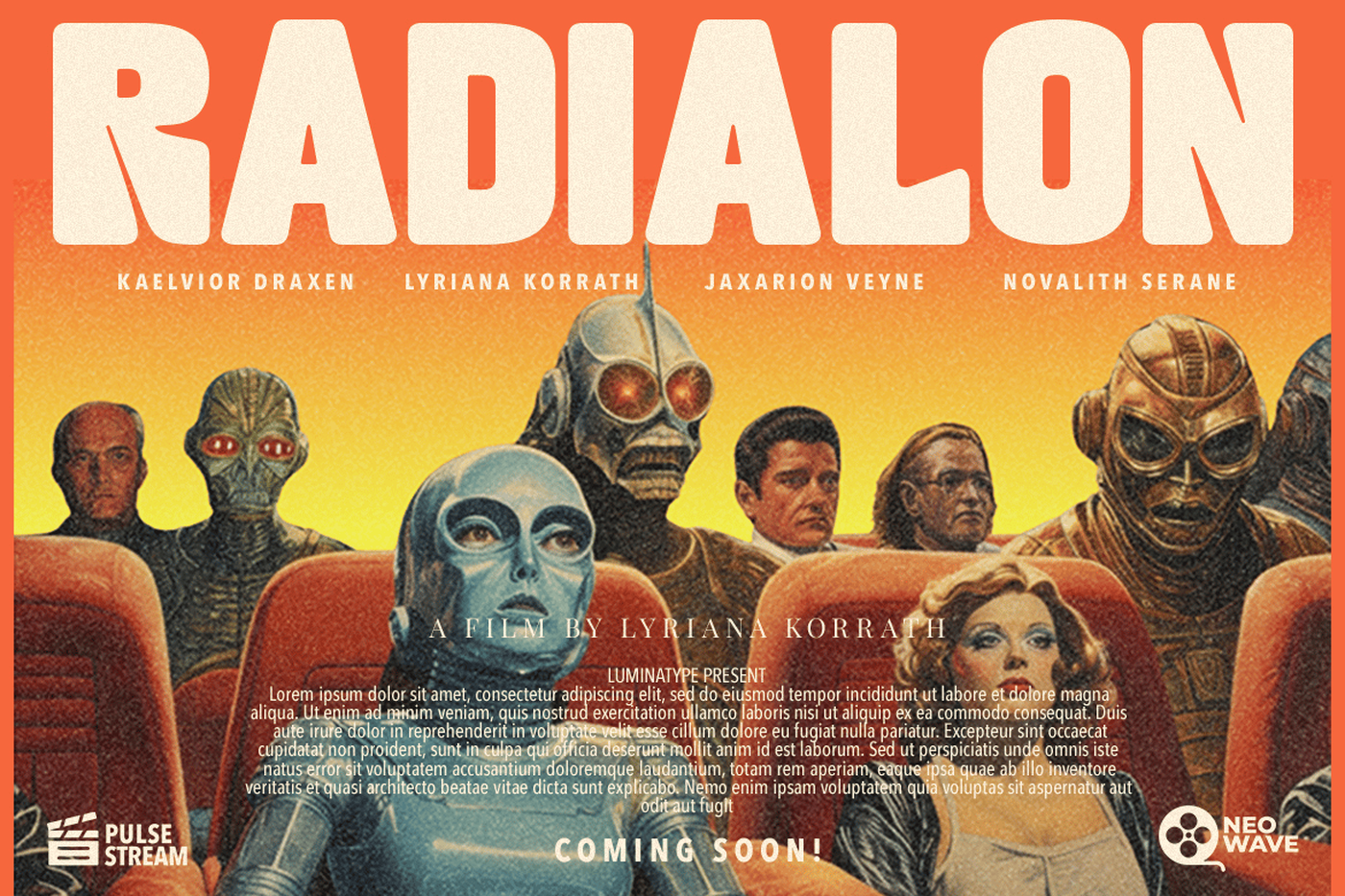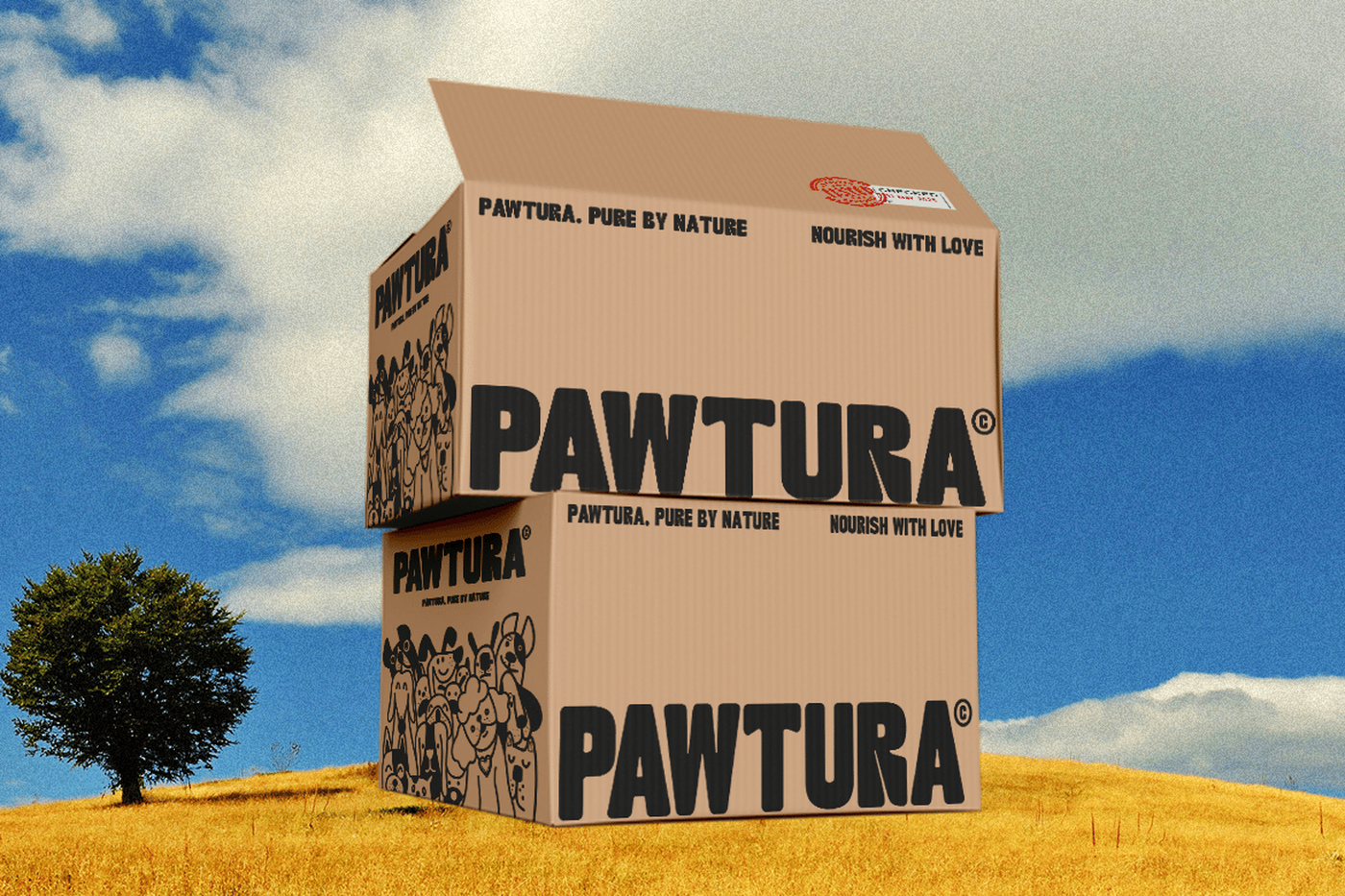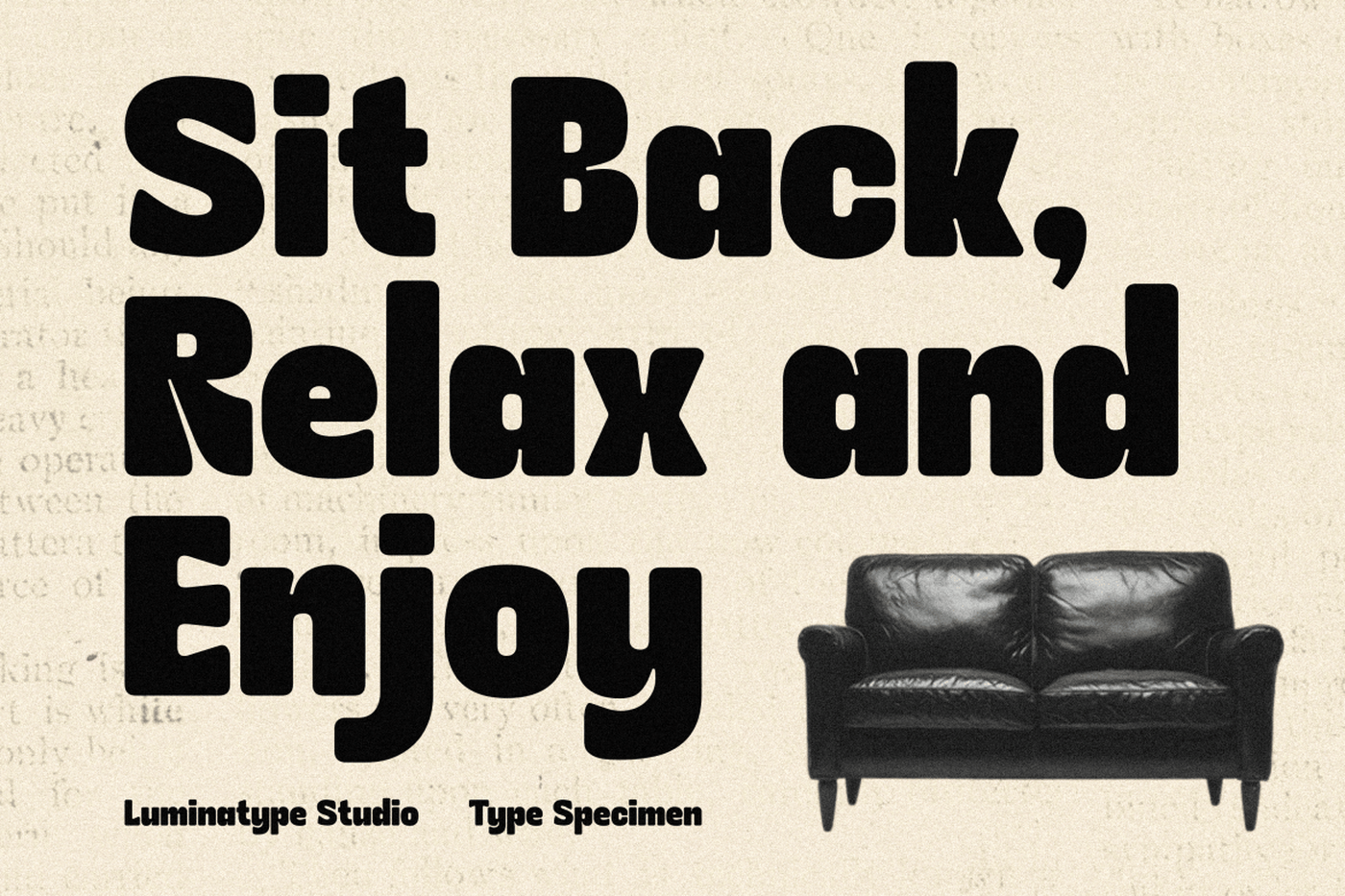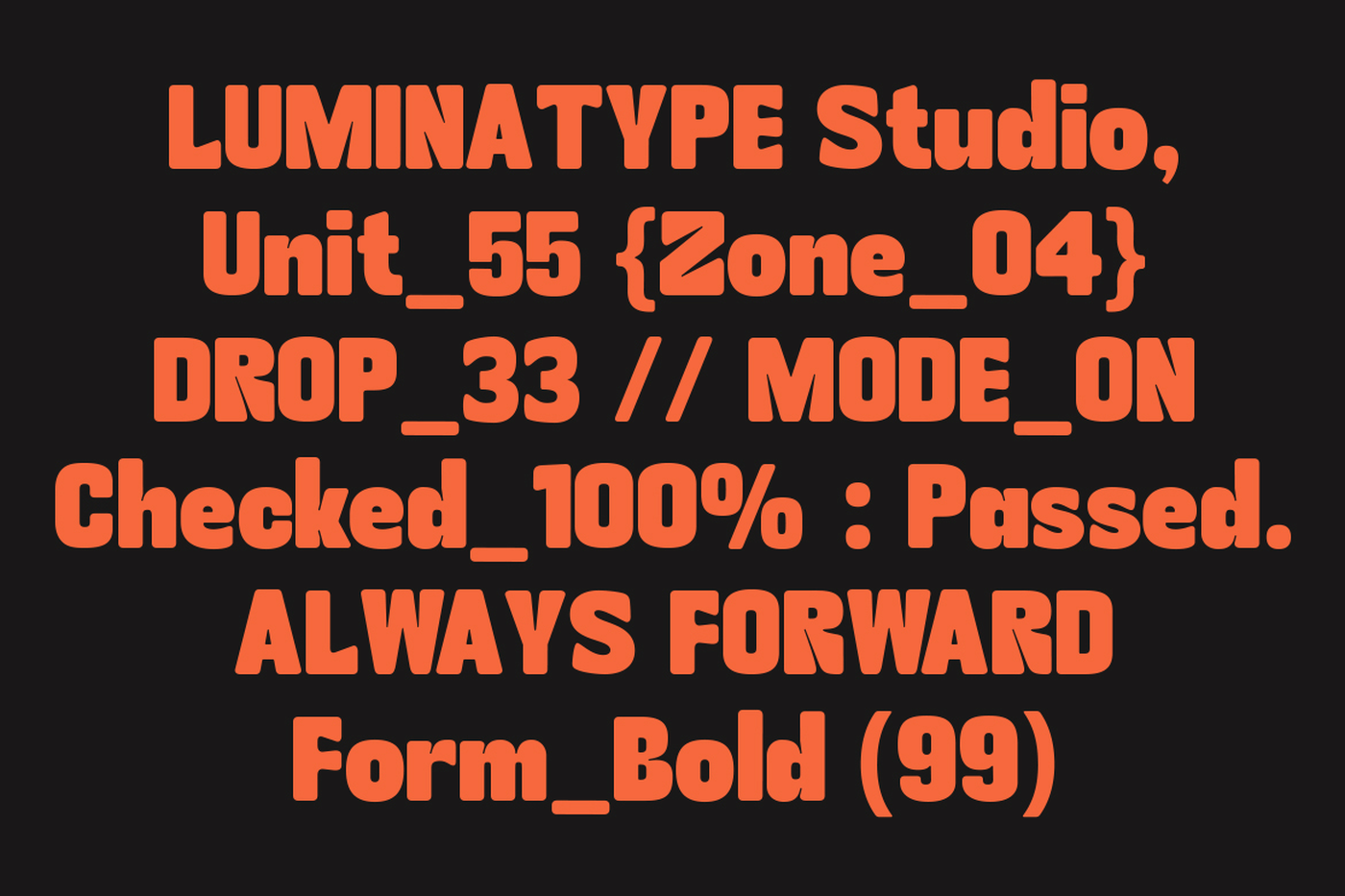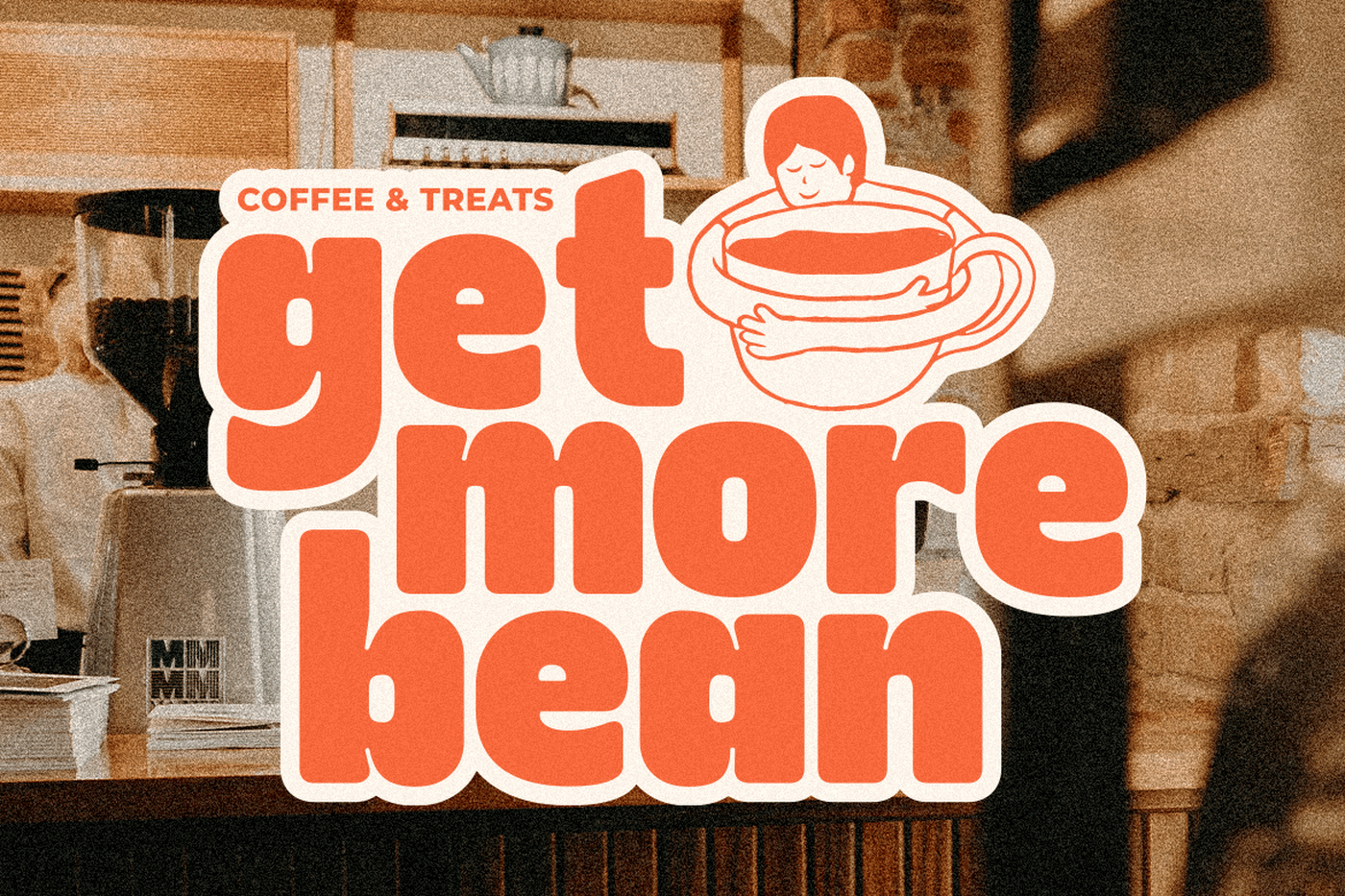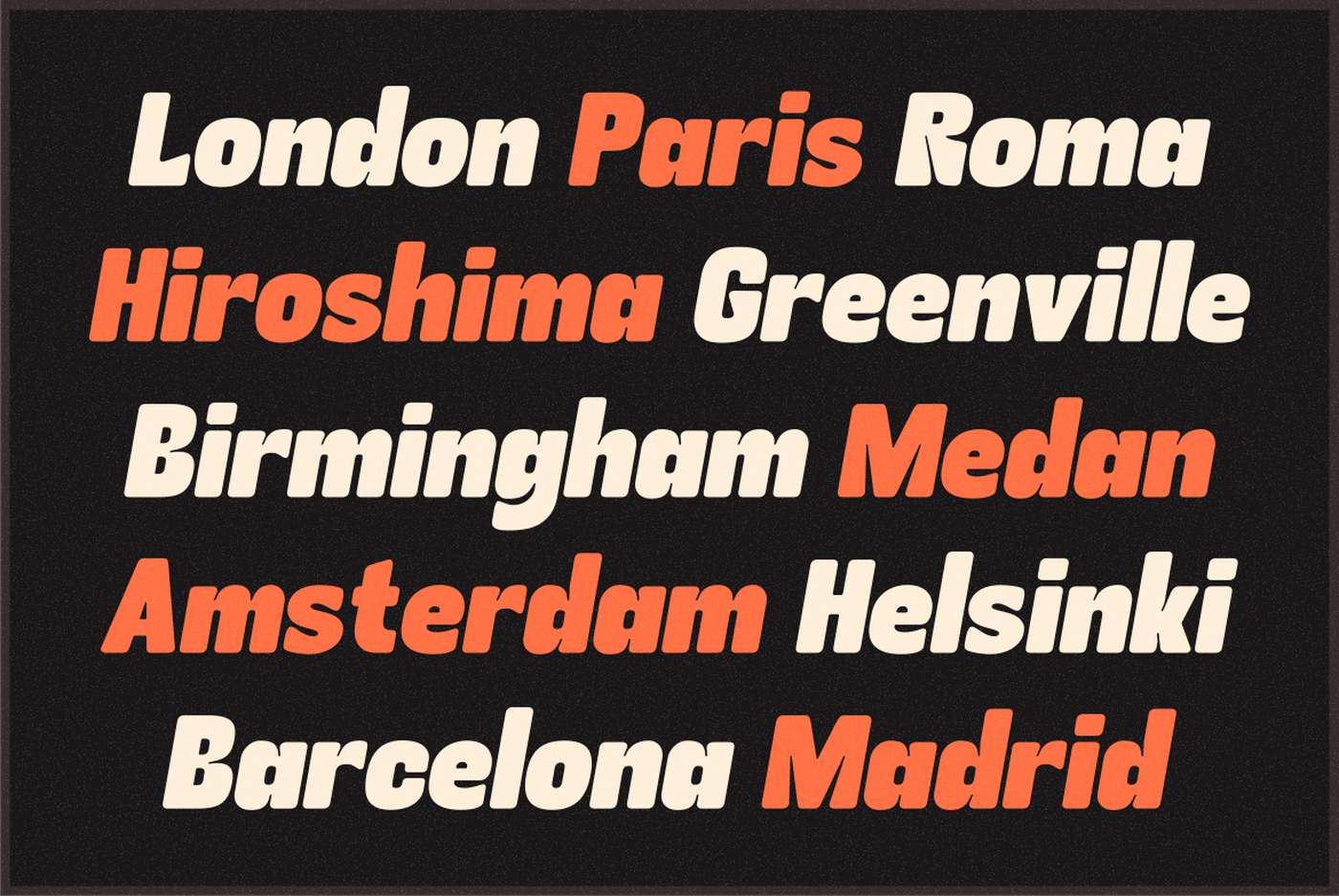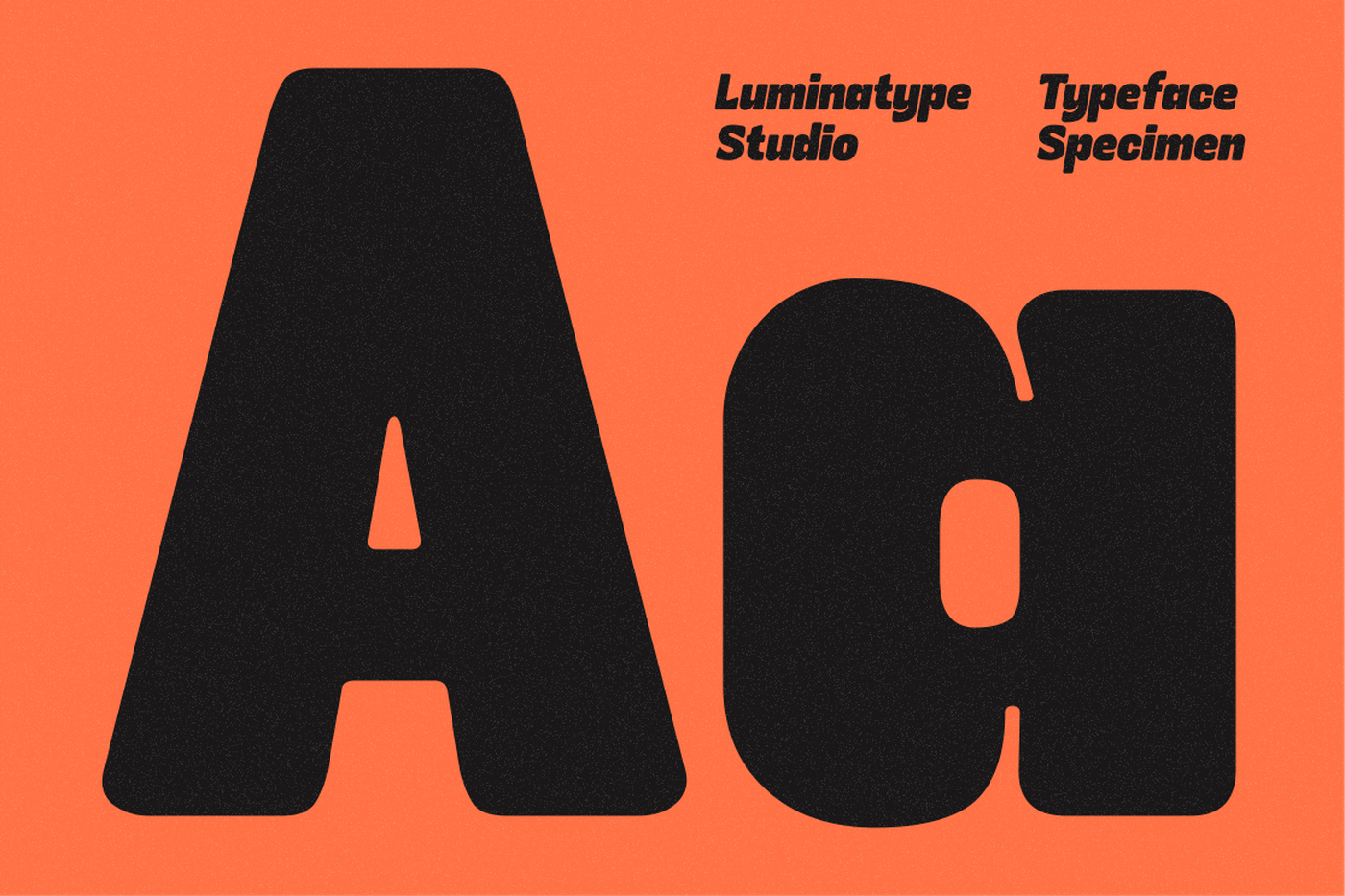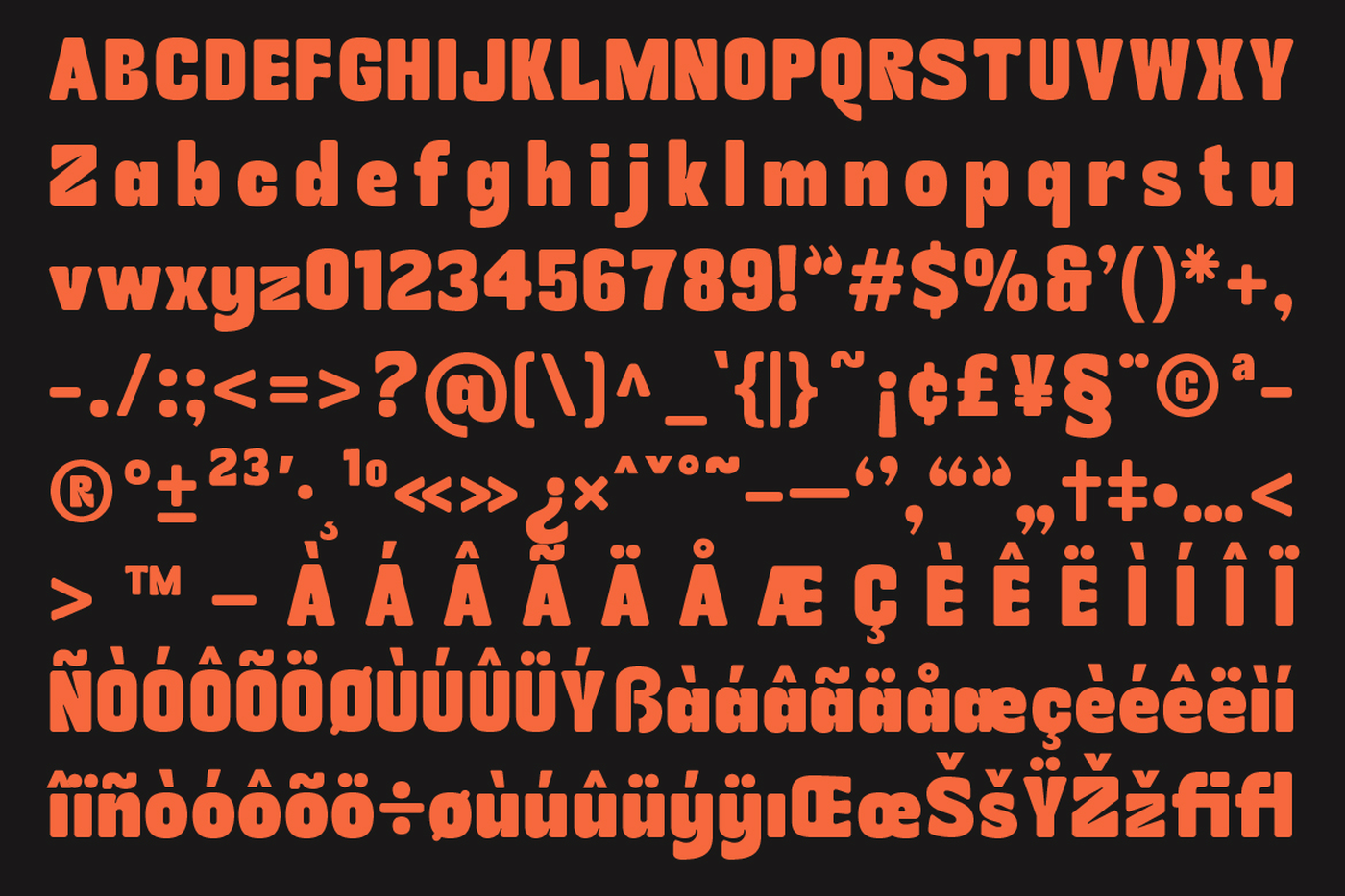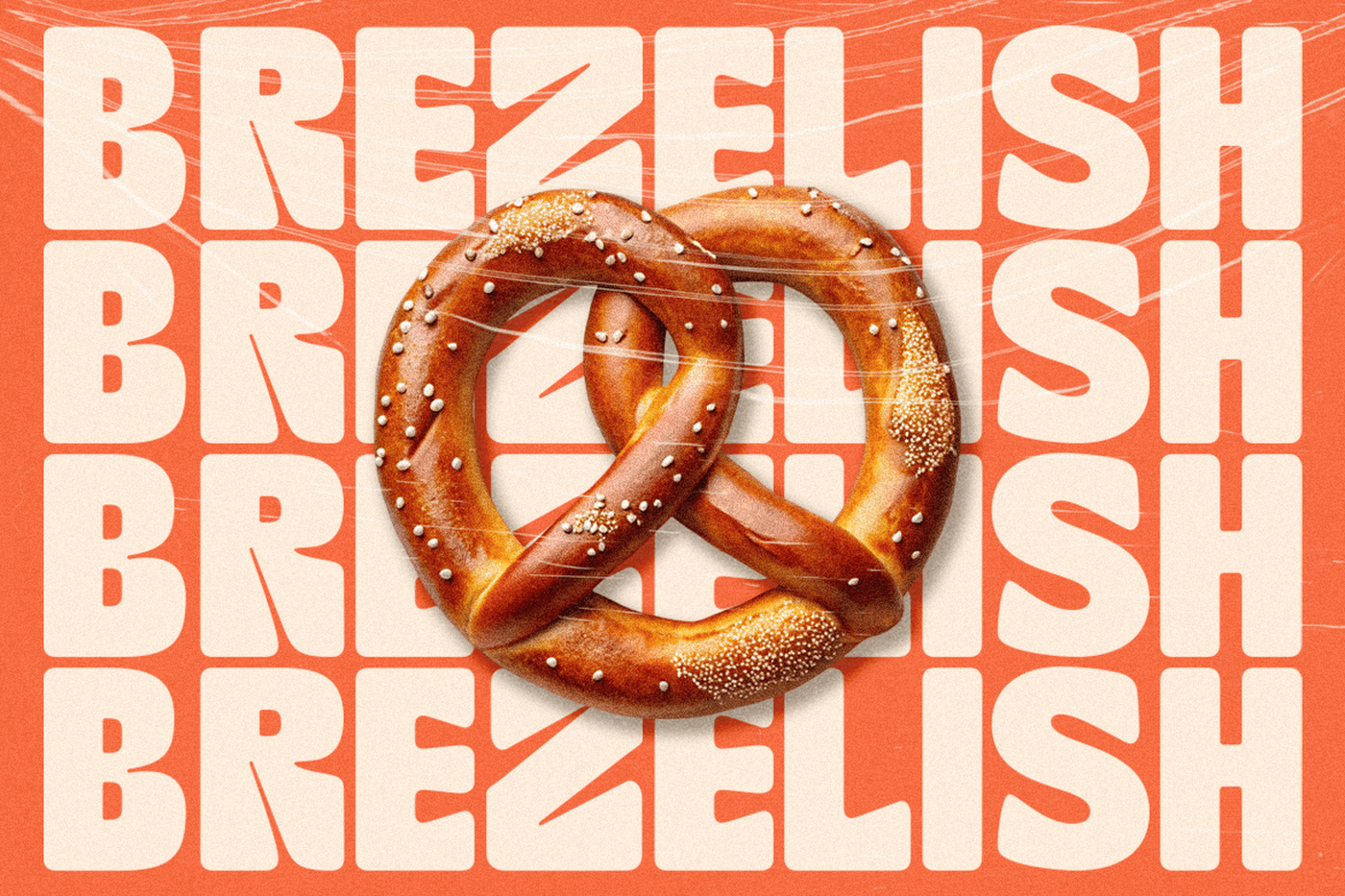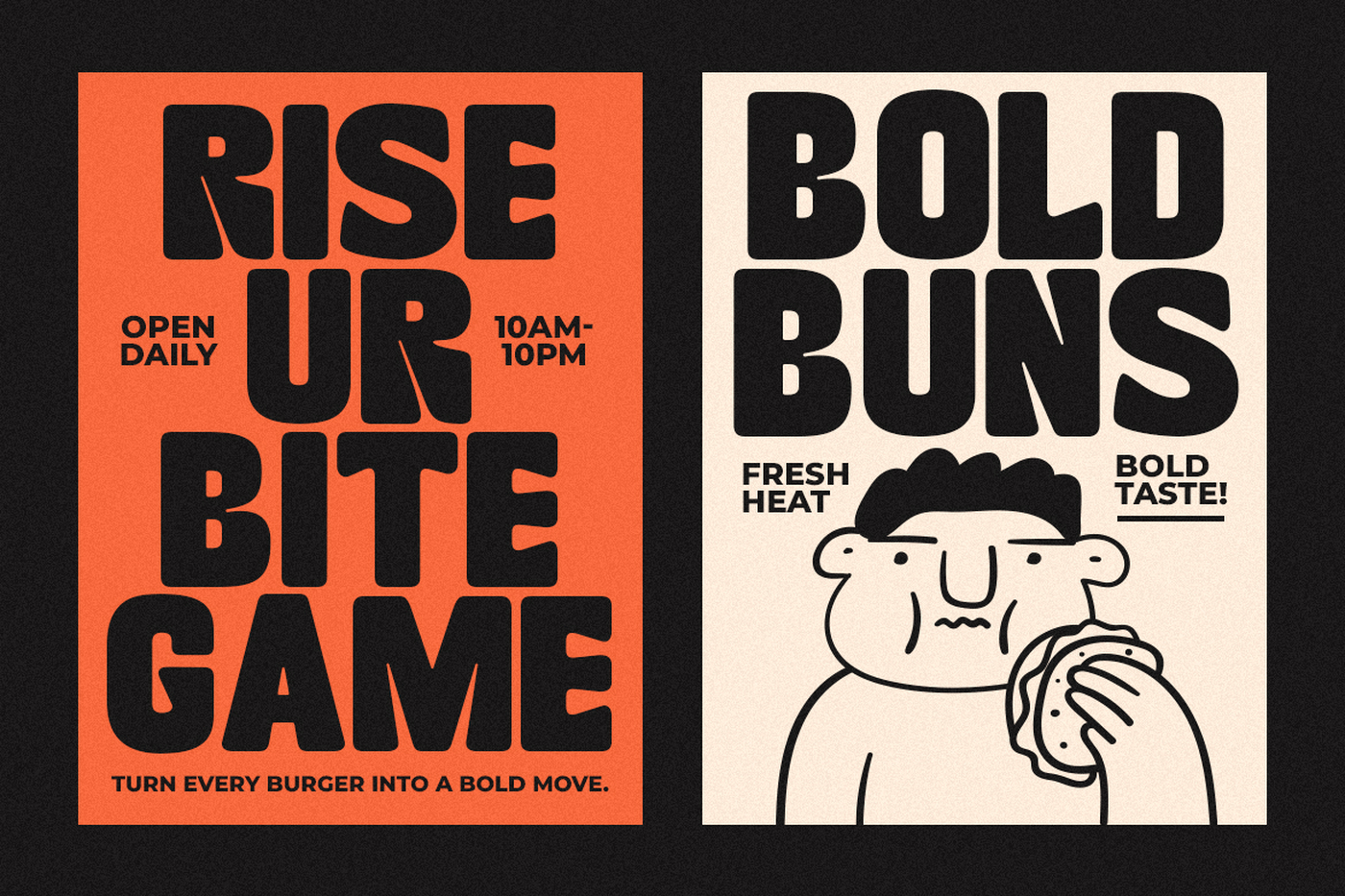
Kindly Rumina - Fun Chunky Font
This contemporary fun and chunky display font is crafted to bring a unique flair to your creative projects. Accentuate your designs with this upbeat and robust typeface that easily captures attention while remaining versatile for a myriad of design needs. Discover the dynamism of Kindly Rumina Font, where modern aesthetics meet playful design.